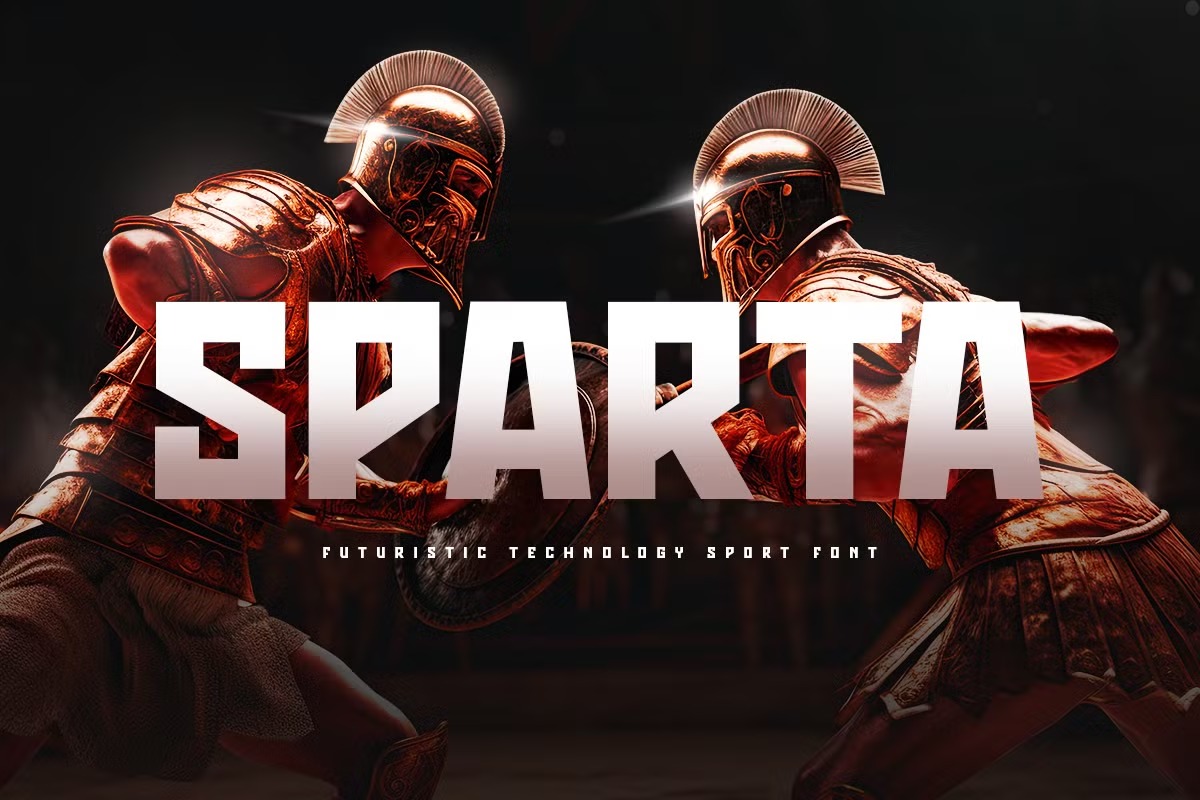
SPARTA - Futuristic Technology Sport Font
SPARTA delivers bold futuristic power designed specifically for sports, action, and technology projects that demand attention. This striking sans serif typeface brings modern edge to logos, film titles, action posters, match designs, and any typography that needs to make a powerful statement. SPARTA combines athletic strength with futuristic style, making it ideal for sports branding, technology projects, action themes, and competitive designs. SPARTA Futuristic Technology Sport Font includes: C...